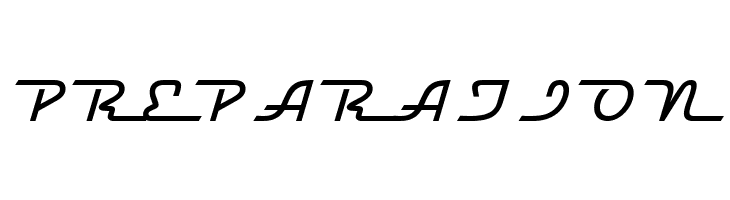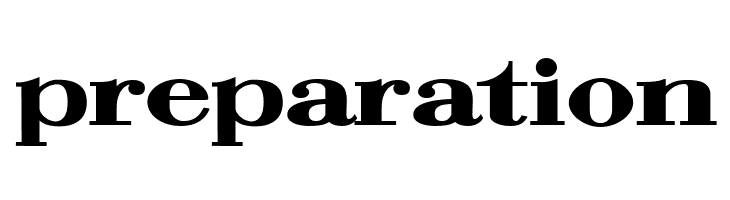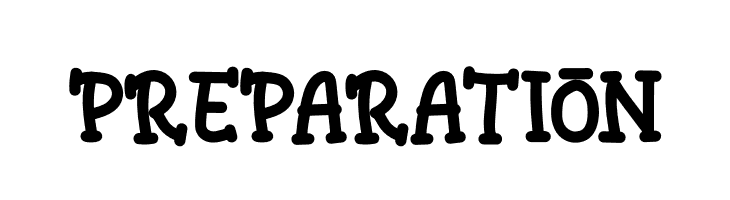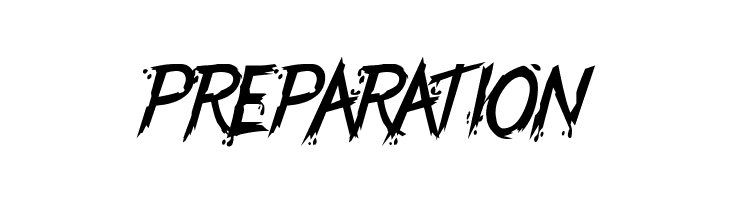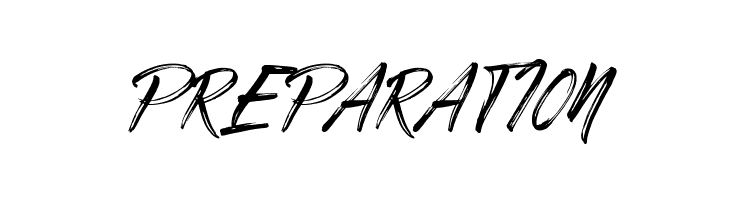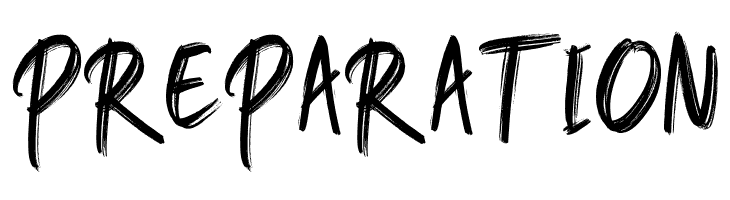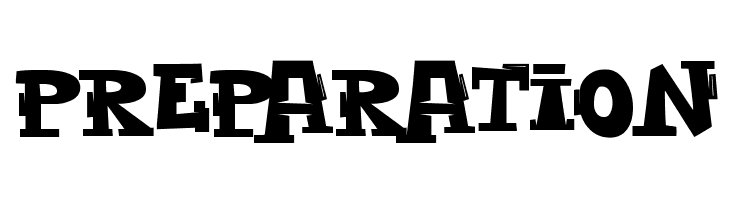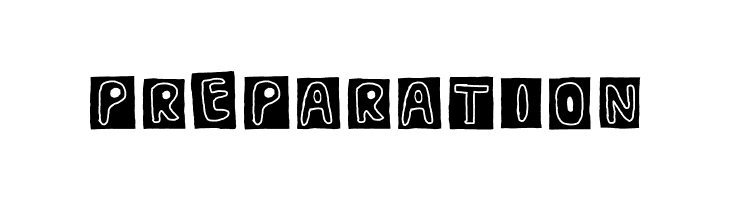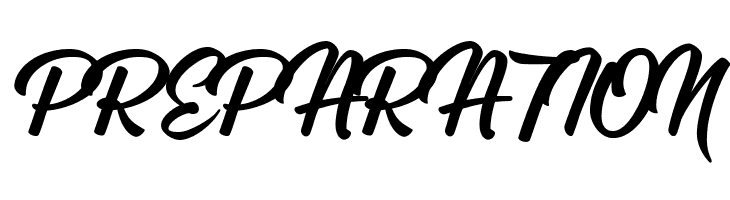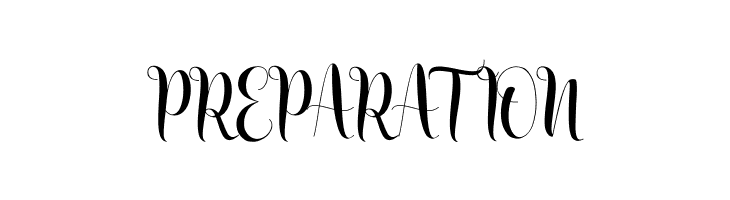
A bold, handwritten font with dynamic, brush-like strokes.
A bold, brush-style font with dynamic, hand-drawn strokes.
A dynamic, brush-style font with expressive, calligraphic strokes.
A bold, flowing script font with elegant, interconnected letters.
An elegant, cursive font with flowing curves and artistic flourishes.
A playful and elegant script font with flowing, connected strokes.
A dynamic and expressive handwritten font with fluid, interconnected strokes.
A modern, handwritten-style font with fluid, connected letters.
A modern, geometric font with rounded edges and uniform width.
A decorative font with ornate frames and traditional motifs, perfect for cultural designs.
A bold, expressive script font with flowing, cursive letterforms.
A bold, flowing script font with a lively, handwritten style.
A bold, cursive brush script with dynamic and expressive strokes.
A playful, bold font with thick, rounded strokes and a whimsical design.
A playful, bold font with rounded edges and a whimsical style.
A playful, bold script font with a handwritten, energetic style.
A bold, angular font with sharp edges and a geometric style.
A bold, edgy font with sharp angles and an urban flair.
A bold, edgy font with sharp, angular strokes and a distressed look.
A bold serif font with strong strokes and pronounced serifs, offering a confident and elegant appearance.
A playful, hand-drawn font with outlined letters in irregular squares.
A geometric, abstract font with bold, rectangular outlines and a modern aesthetic.
A bold, angular font with sharp edges and a modern, geometric style.
A bold, geometric font with a modern and industrial aesthetic.
A bold, slab serif font with strong geometric shapes and thick strokes.
A bold, flowing script font with elegant curves and a modern touch.
A bold, flowing script font with elegant, cursive letterforms.
A playful, bubbly font with a hand-drawn, whimsical style.
A playful, whimsical font with quirky, hand-drawn letterforms.